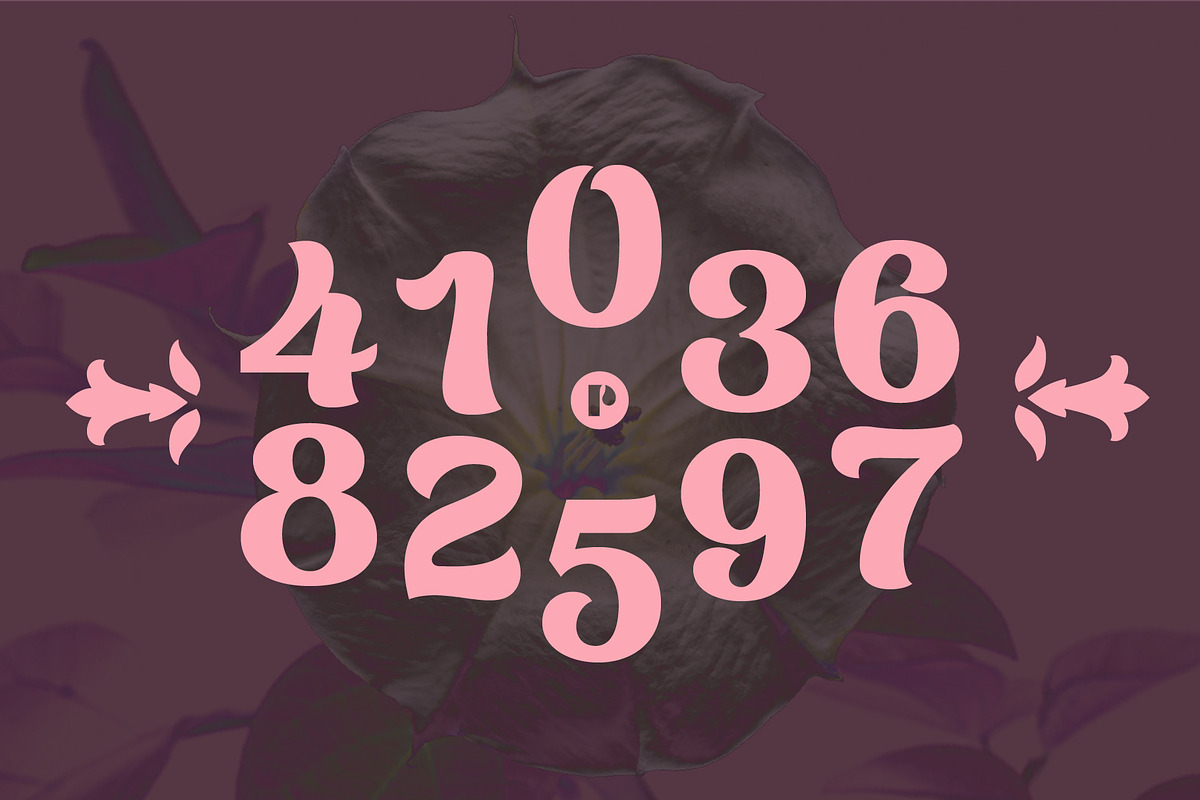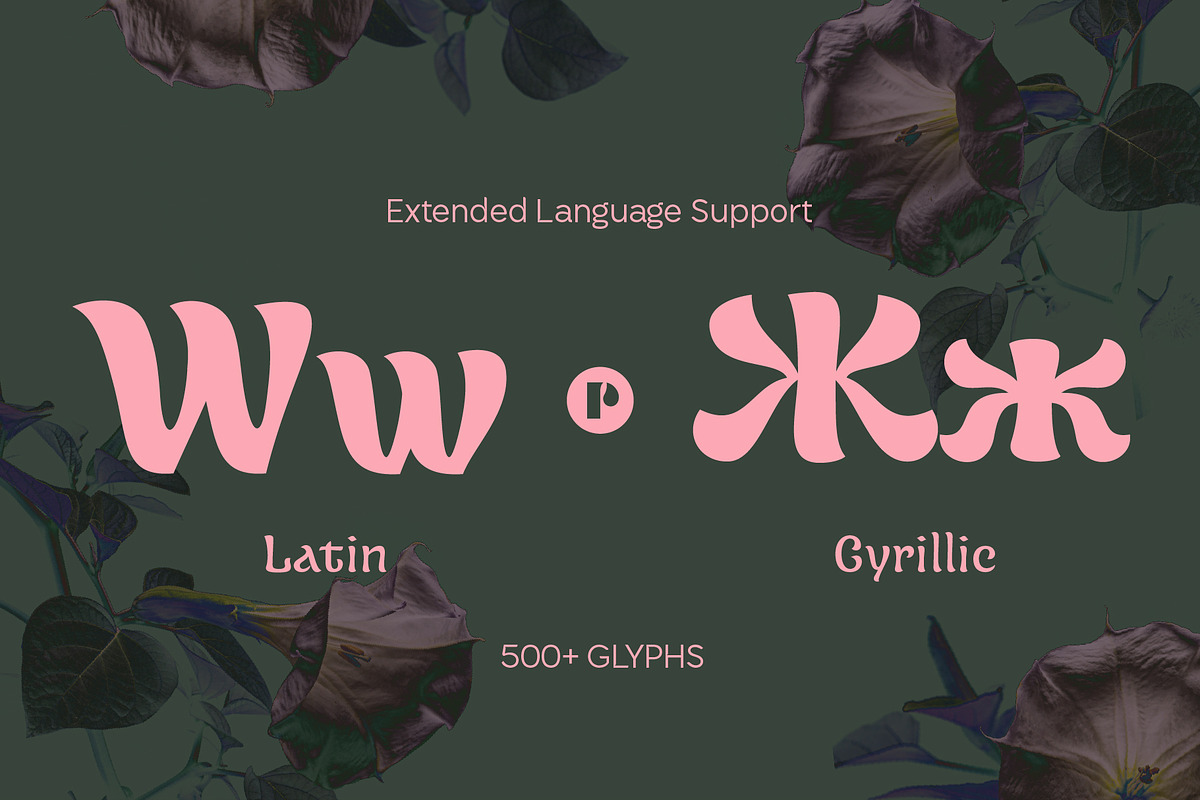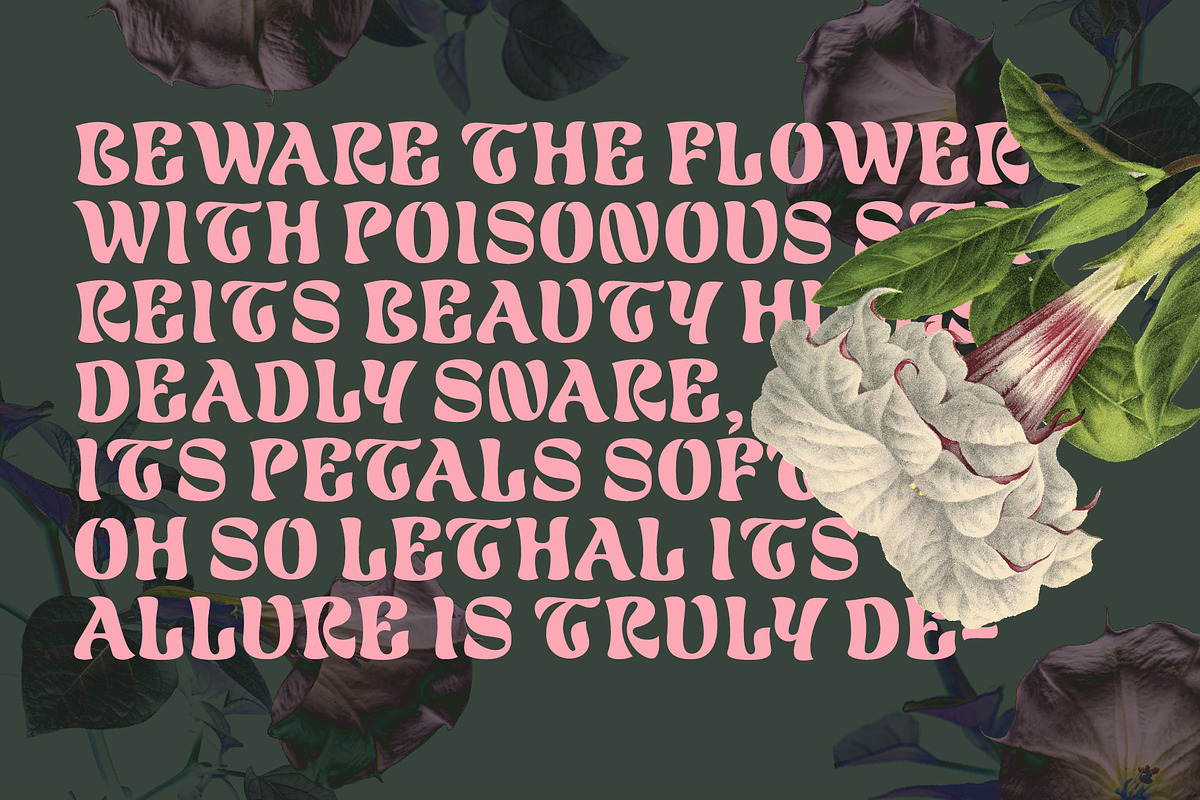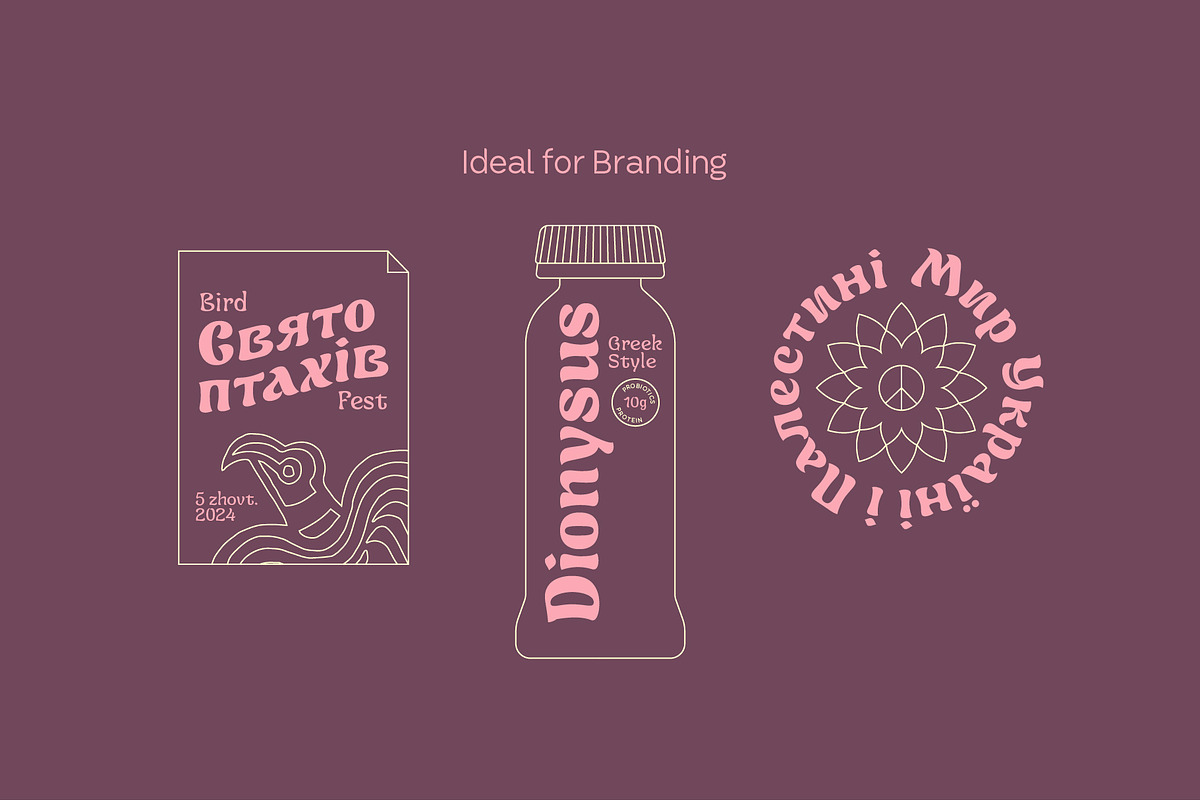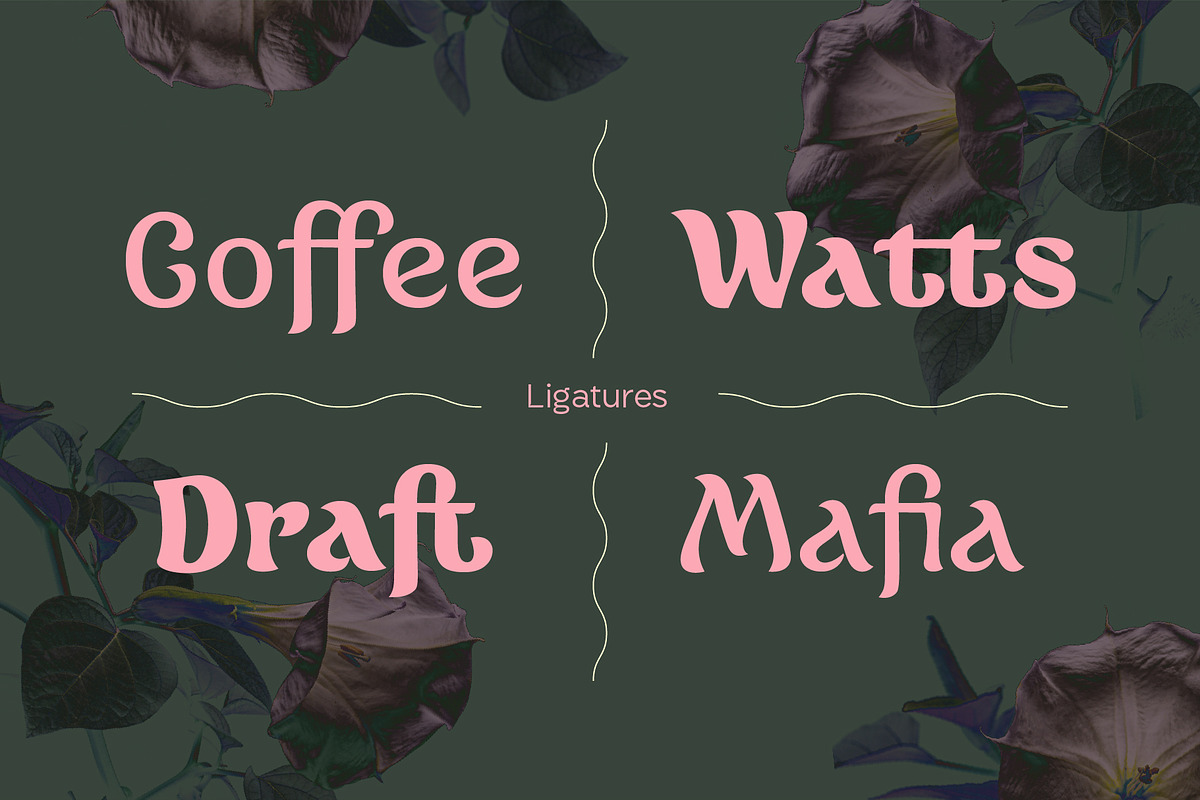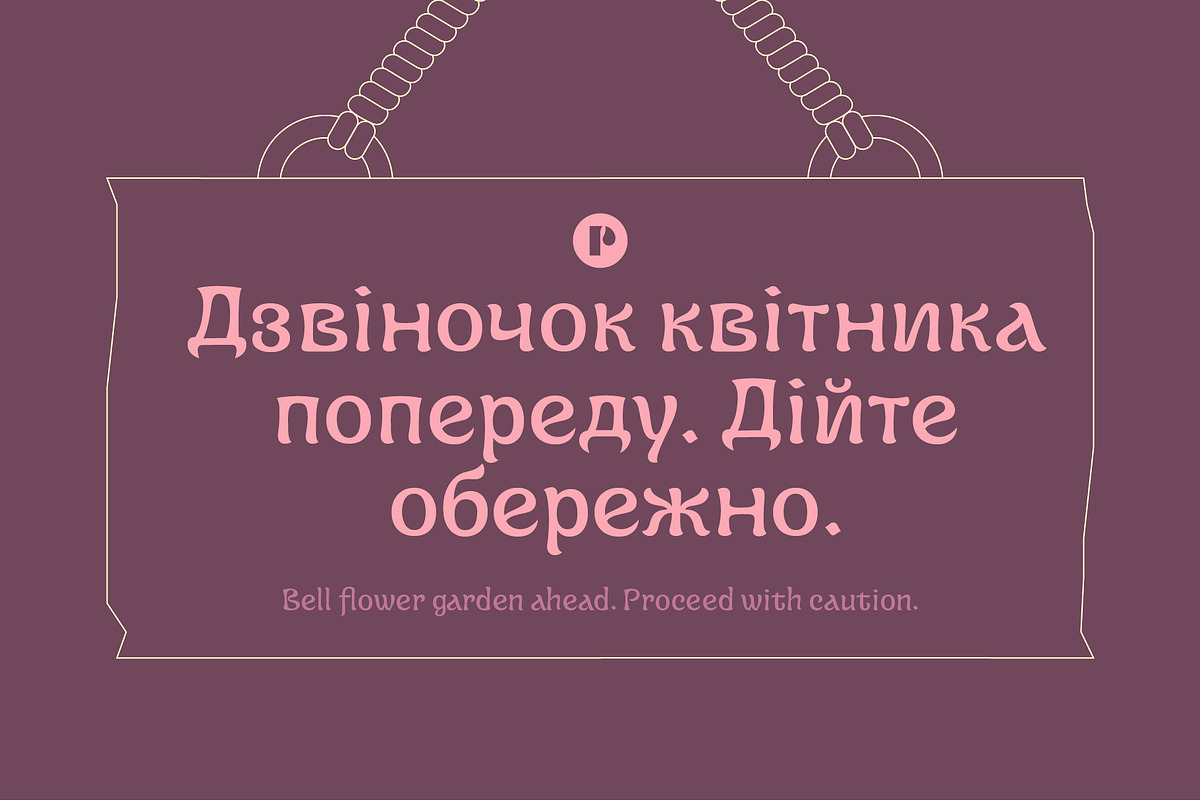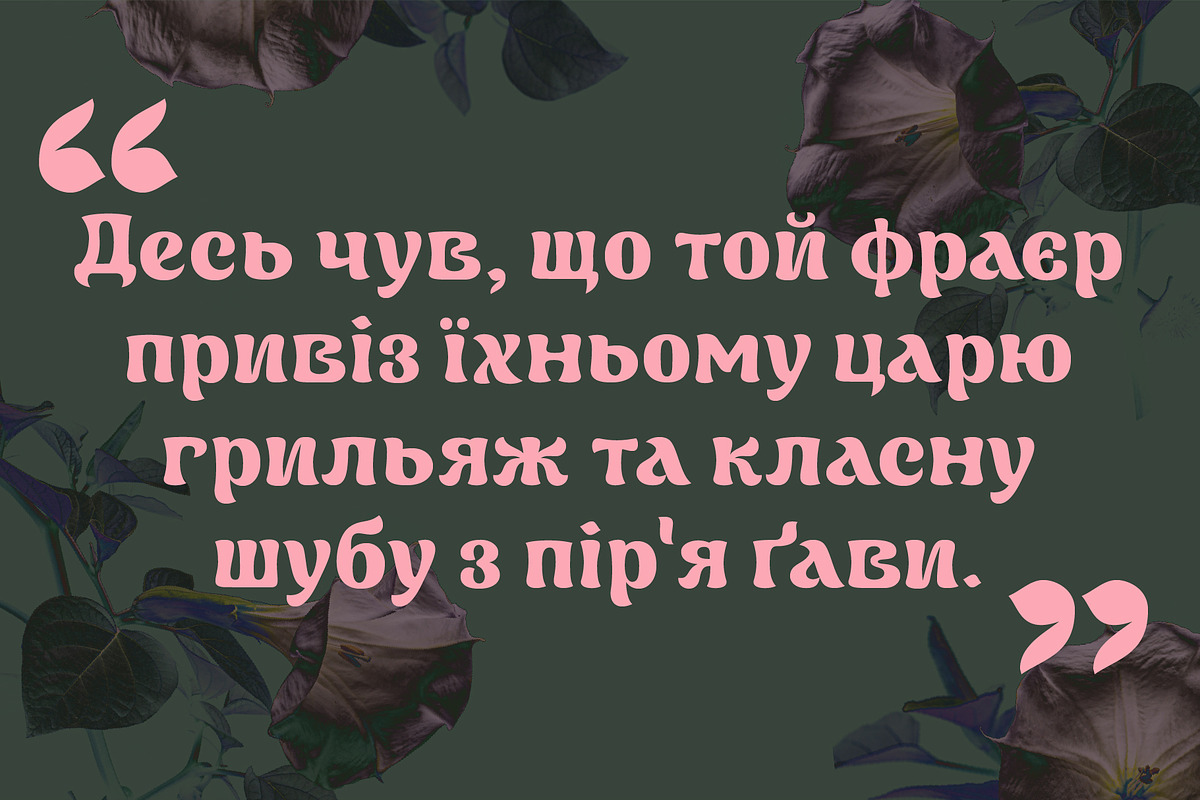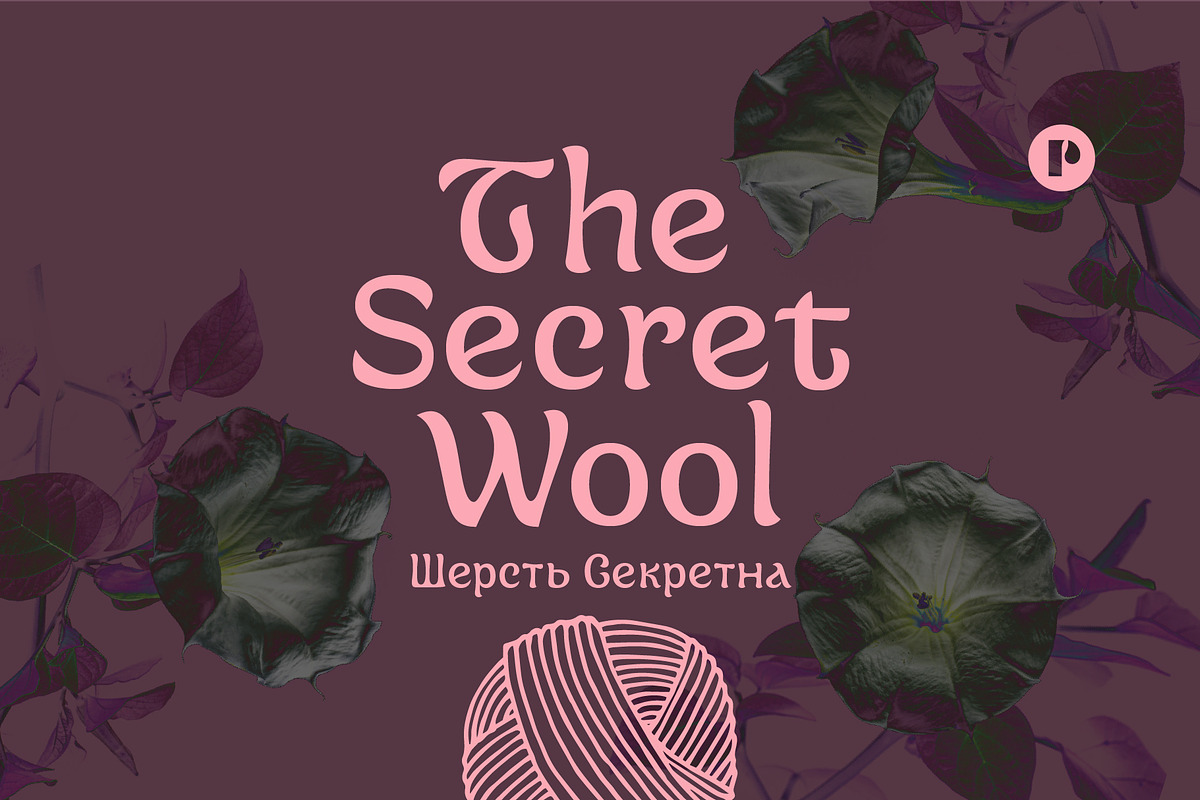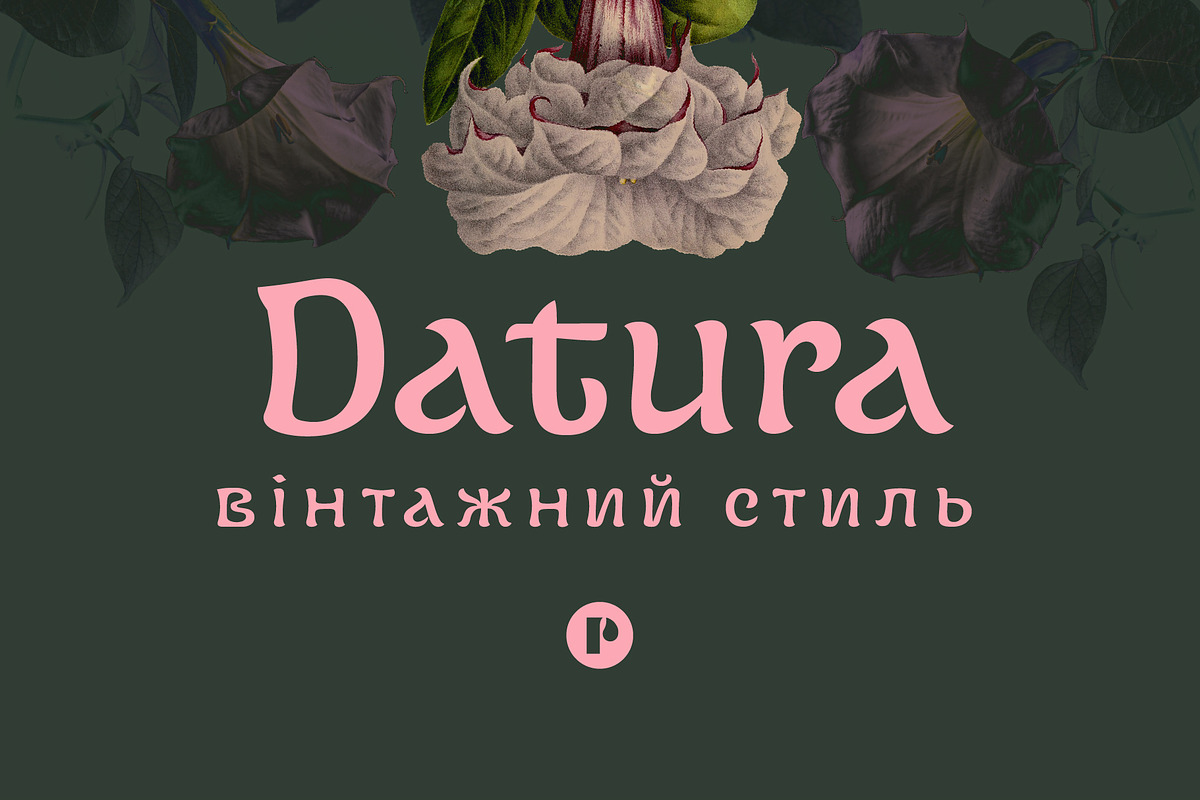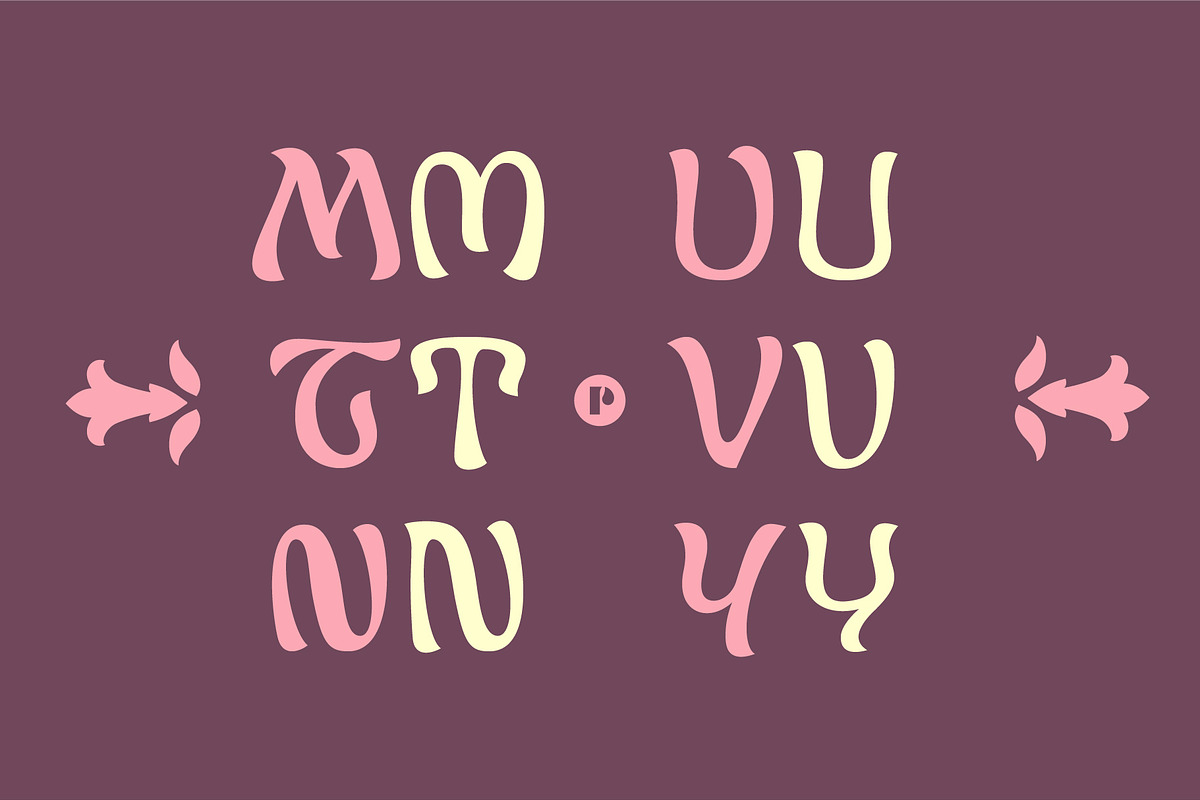
Datura —Fantasy Retro Brush
Datura is a font that lies right at the sweet spot between art nouveau and retro brush, with a psychedelic or drunken feel to it. The letter structures are stable, proving great legibility when used in sentence-cased scenarios; while at the same time giving an organic flow when fully capitalized. Datura combines uncial letterforms with modern single-stroke letters, making a highly versatile display typeface. Good for film titles, typographic projects, branding and content. You may well find it used in fantasy video games and children books.
Russian: Датура - это шрифт, находящийся точно на грани между ар-нуво и ретро кистью, с психоделическим или опьяняющим настроем. Структура букв стабильна, обеспечивая отличную читаемость при использовании в случае предложных сценариев, а также придает органический поток, когда полностью капитализирован. Датура объединяет формы букв унциала с современными буквами с одним штрихом, создавая высокоуниверсальный дисплейный шрифт. Подходит для заголовков фильмов, типографских проектов, брендинга и контента. Его можно часто увидеть в фэнтезийных видеоиграх и детских книгах.
Ukrainian: Датура - це шрифт, який лежить прямо на солодкій точці між ар-нуво і ретро кисть, із психоделічним чи сп'янілого відчуттям. Структури літер стабільні, забезпечуючи велику читабельність при використанні у випадку речень; в той же час вони надають органічний потік при повному написанні великими літерами. Датура поєднує форми літер унціалу з сучасними літерами з одним ходом, створюючи дуже універсальний дисплейний шрифт. Підходить для назв фільмів, типографських проектів, брендингу та контенту. Ви можете знайти його використання в фентезійних відеоіграх і дитячих книгах.